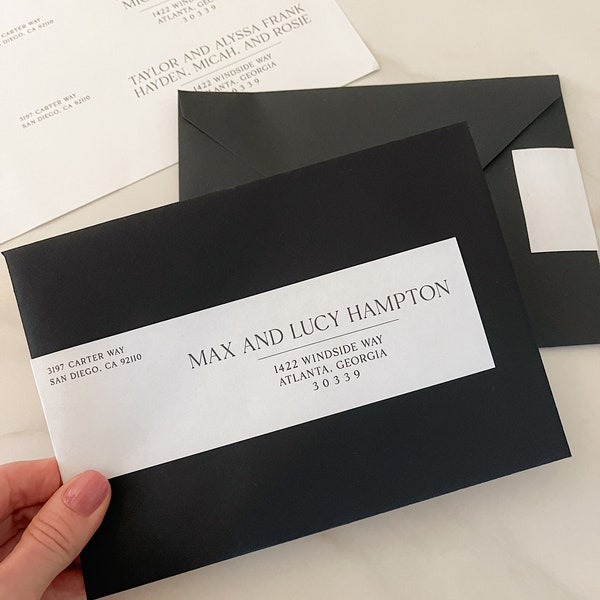
Best Font For Address Labels . To ensure your shipments move through the process swiftly and arrive at their intended destination, stay away from curly, fun fonts. explore the best fonts for labels in our comprehensive guide, featuring tips on readability, branding, and making. 7 things to consider when choosing the best font for labels. discover the best 15 fonts for address labels in word! The usps website recommends simple fonts in at least 10 point type. Letters and boxes often go through automatic mail sorters. Discover what makes a font readable and find the perfect match for. They can be fun, bold, tacky,. From arial to roboto, find the perfect font for readability and. This guide walks you through the great collection of fonts that can be found in avery design & print. choose the right font for your branded labels. learn how to choose the best font for your product labels. best fonts for: Today, i've highlighted 23 outstanding address label fonts ideal for adding a personal touch to.
discover the best 15 fonts for address labels in word! From arial to roboto, find the perfect font for readability and. learn how to choose the best font for your product labels. Today, i've highlighted 23 outstanding address label fonts ideal for adding a personal touch to. Letters and boxes often go through automatic mail sorters. Discover what makes a font readable and find the perfect match for. choose the right font for your branded labels. explore the best fonts for labels in our comprehensive guide, featuring tips on readability, branding, and making. best fonts for: The usps website recommends simple fonts in at least 10 point type.
Best Font For Address Labels learn how to choose the best font for your product labels. explore the best fonts for labels in our comprehensive guide, featuring tips on readability, branding, and making. 7 things to consider when choosing the best font for labels. learn how to choose the best font for your product labels. The usps website recommends simple fonts in at least 10 point type. Letters and boxes often go through automatic mail sorters. They can be fun, bold, tacky,. best fonts for: Today, i've highlighted 23 outstanding address label fonts ideal for adding a personal touch to. choose the right font for your branded labels. Discover what makes a font readable and find the perfect match for. To ensure your shipments move through the process swiftly and arrive at their intended destination, stay away from curly, fun fonts. This guide walks you through the great collection of fonts that can be found in avery design & print. discover the best 15 fonts for address labels in word! From arial to roboto, find the perfect font for readability and.
23 Fonts for Address Labels That Show Off Your Design Sensibility Best Font For Address Labels explore the best fonts for labels in our comprehensive guide, featuring tips on readability, branding, and making. best fonts for: Letters and boxes often go through automatic mail sorters. They can be fun, bold, tacky,. This guide walks you through the great collection of fonts that can be found in avery design & print. 7 things to. Best Font For Address Labels.
Best Font For Address Labels best fonts for: choose the right font for your branded labels. explore the best fonts for labels in our comprehensive guide, featuring tips on readability, branding, and making. Discover what makes a font readable and find the perfect match for. To ensure your shipments move through the process swiftly and arrive at their intended destination, stay away. Best Font For Address Labels.
Best Font For Address Labels The usps website recommends simple fonts in at least 10 point type. This guide walks you through the great collection of fonts that can be found in avery design & print. Discover what makes a font readable and find the perfect match for. explore the best fonts for labels in our comprehensive guide, featuring tips on readability, branding, and. Best Font For Address Labels.
Best Font For Address Labels best fonts for: discover the best 15 fonts for address labels in word! Today, i've highlighted 23 outstanding address label fonts ideal for adding a personal touch to. Discover what makes a font readable and find the perfect match for. learn how to choose the best font for your product labels. This guide walks you through the. Best Font For Address Labels.
Best Font For Address Labels best fonts for: discover the best 15 fonts for address labels in word! Today, i've highlighted 23 outstanding address label fonts ideal for adding a personal touch to. explore the best fonts for labels in our comprehensive guide, featuring tips on readability, branding, and making. Letters and boxes often go through automatic mail sorters. choose the. Best Font For Address Labels.
Best Font For Wedding Address Labels Best Font For Address Labels They can be fun, bold, tacky,. choose the right font for your branded labels. Letters and boxes often go through automatic mail sorters. Discover what makes a font readable and find the perfect match for. Today, i've highlighted 23 outstanding address label fonts ideal for adding a personal touch to. The usps website recommends simple fonts in at least. Best Font For Address Labels.
Best Font For Address Labels To ensure your shipments move through the process swiftly and arrive at their intended destination, stay away from curly, fun fonts. Today, i've highlighted 23 outstanding address label fonts ideal for adding a personal touch to. 7 things to consider when choosing the best font for labels. discover the best 15 fonts for address labels in word! . Best Font For Address Labels.
How to Pick the Right Font for Your Labels Avery Best Font For Address Labels Letters and boxes often go through automatic mail sorters. 7 things to consider when choosing the best font for labels. learn how to choose the best font for your product labels. To ensure your shipments move through the process swiftly and arrive at their intended destination, stay away from curly, fun fonts. This guide walks you through the. Best Font For Address Labels.
Custom House Address / Cutout Street Address / Acrylic House Numbers Best Font For Address Labels choose the right font for your branded labels. 7 things to consider when choosing the best font for labels. Discover what makes a font readable and find the perfect match for. This guide walks you through the great collection of fonts that can be found in avery design & print. discover the best 15 fonts for address. Best Font For Address Labels.